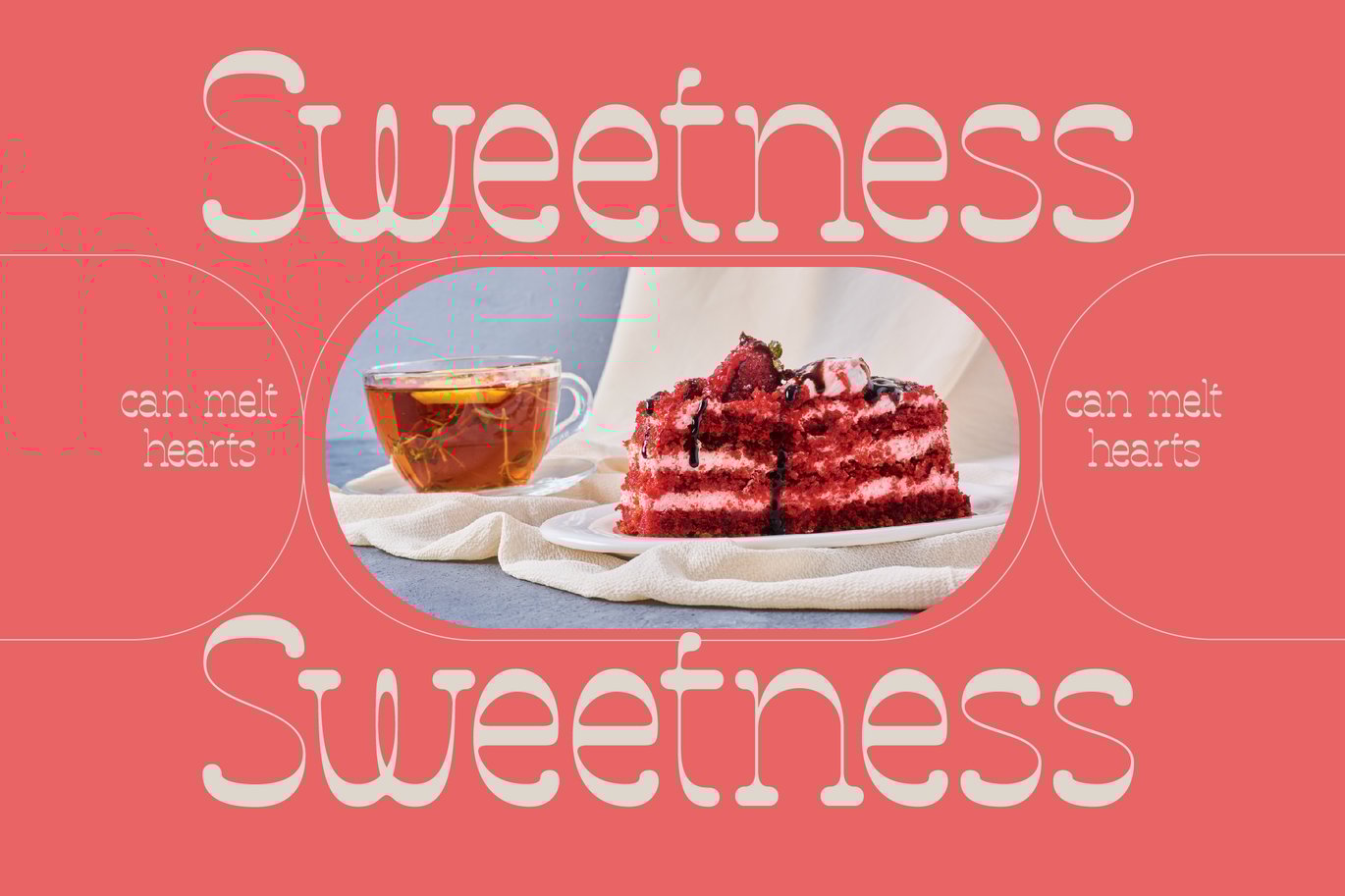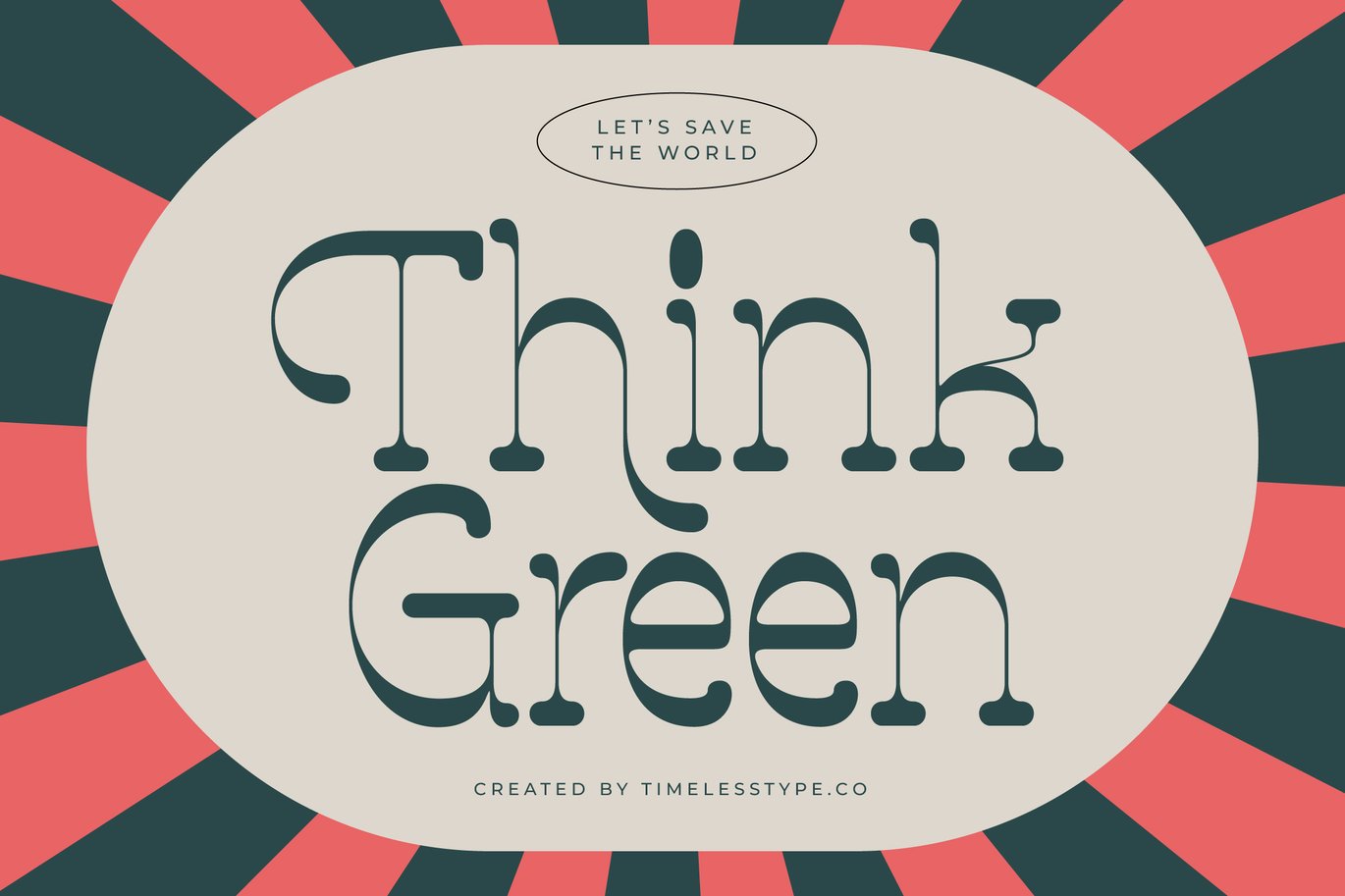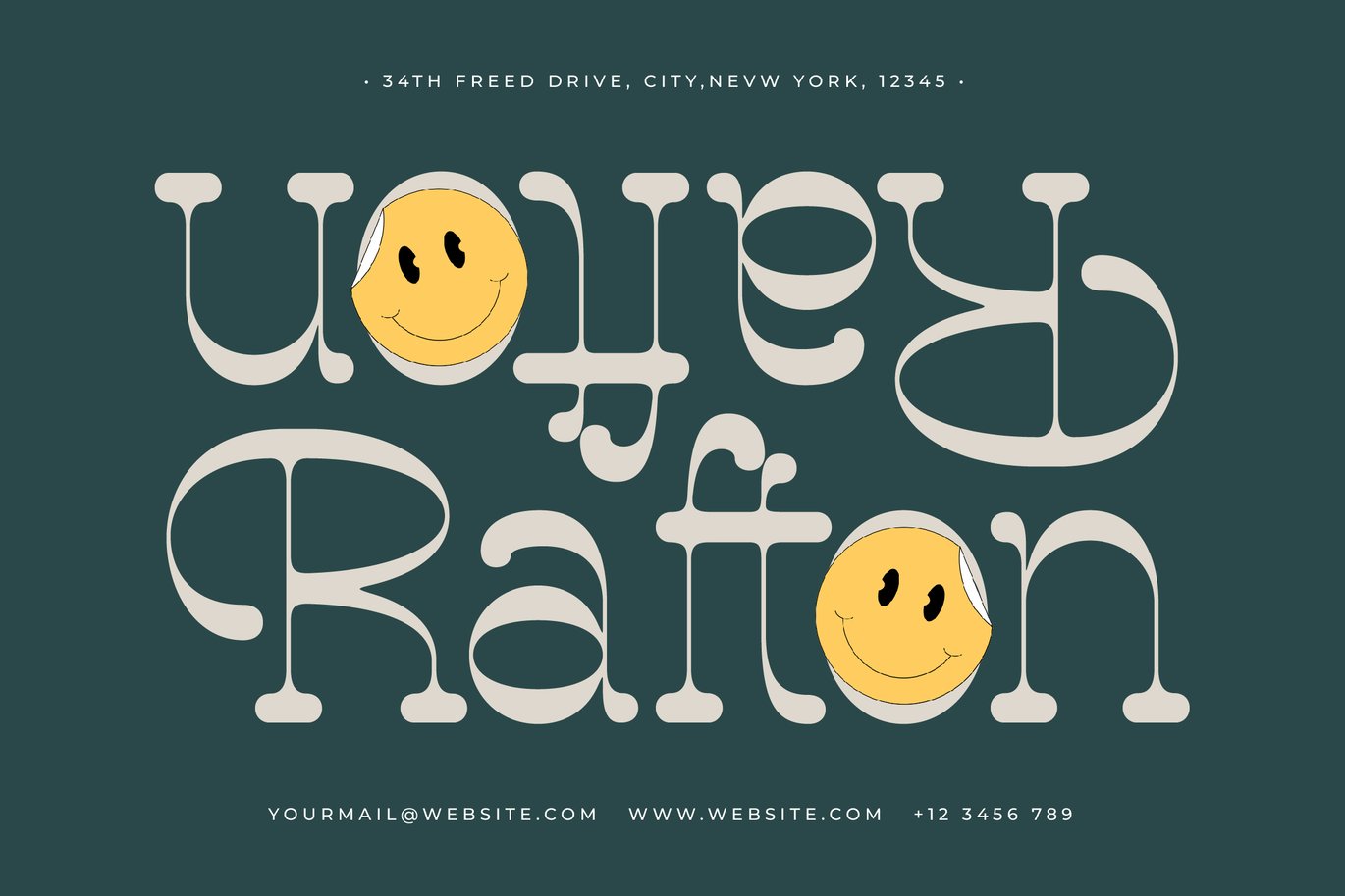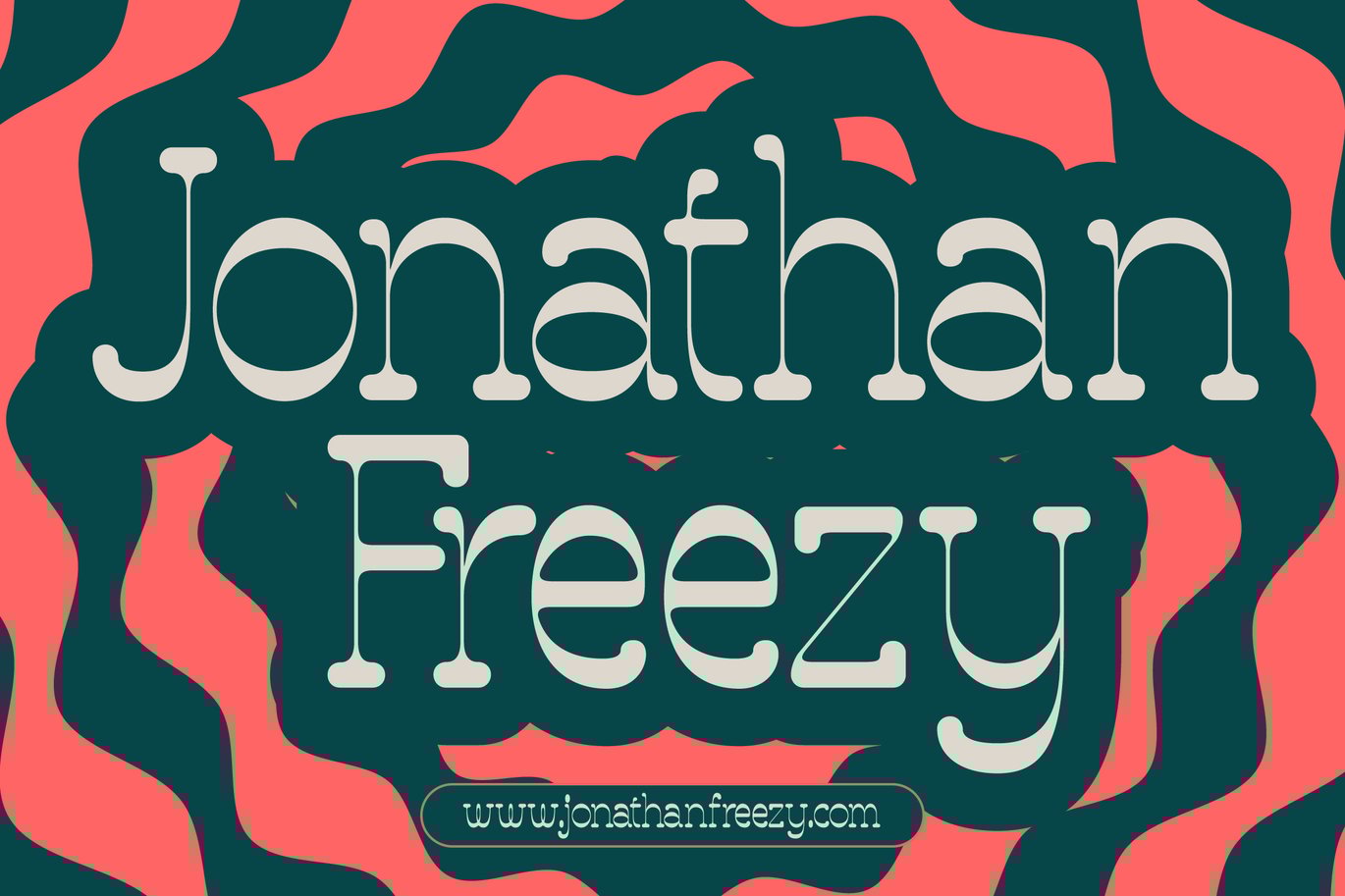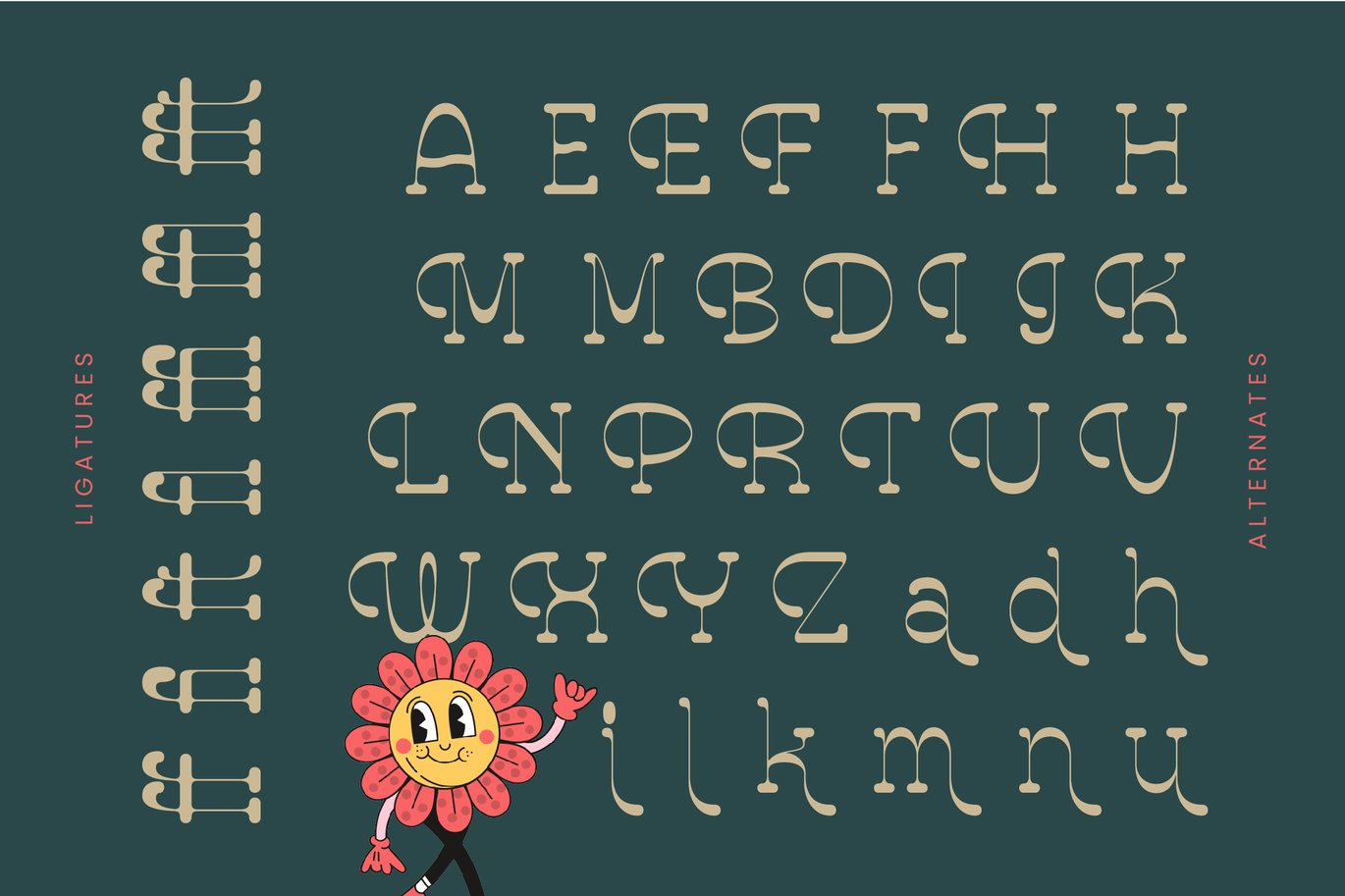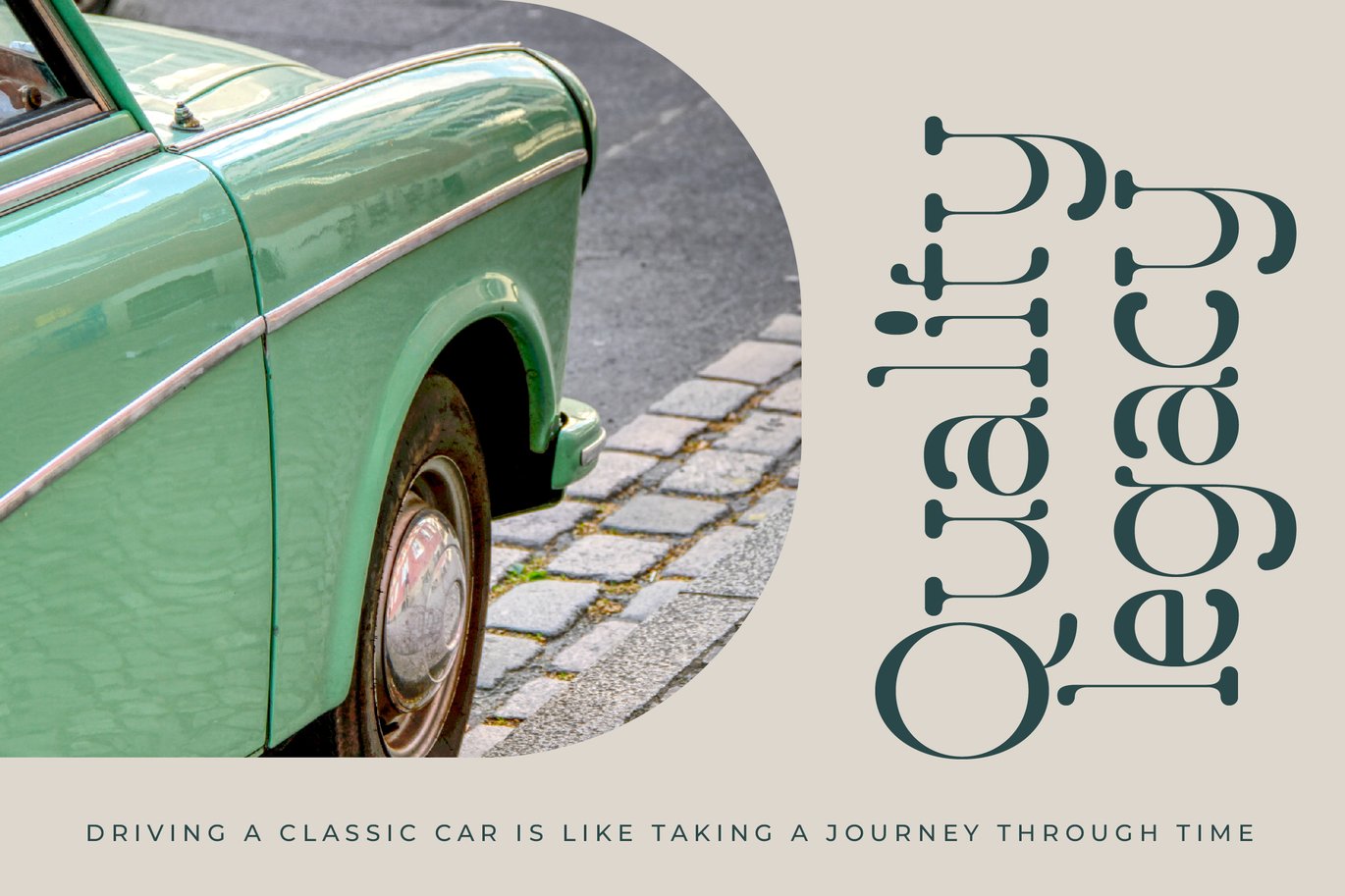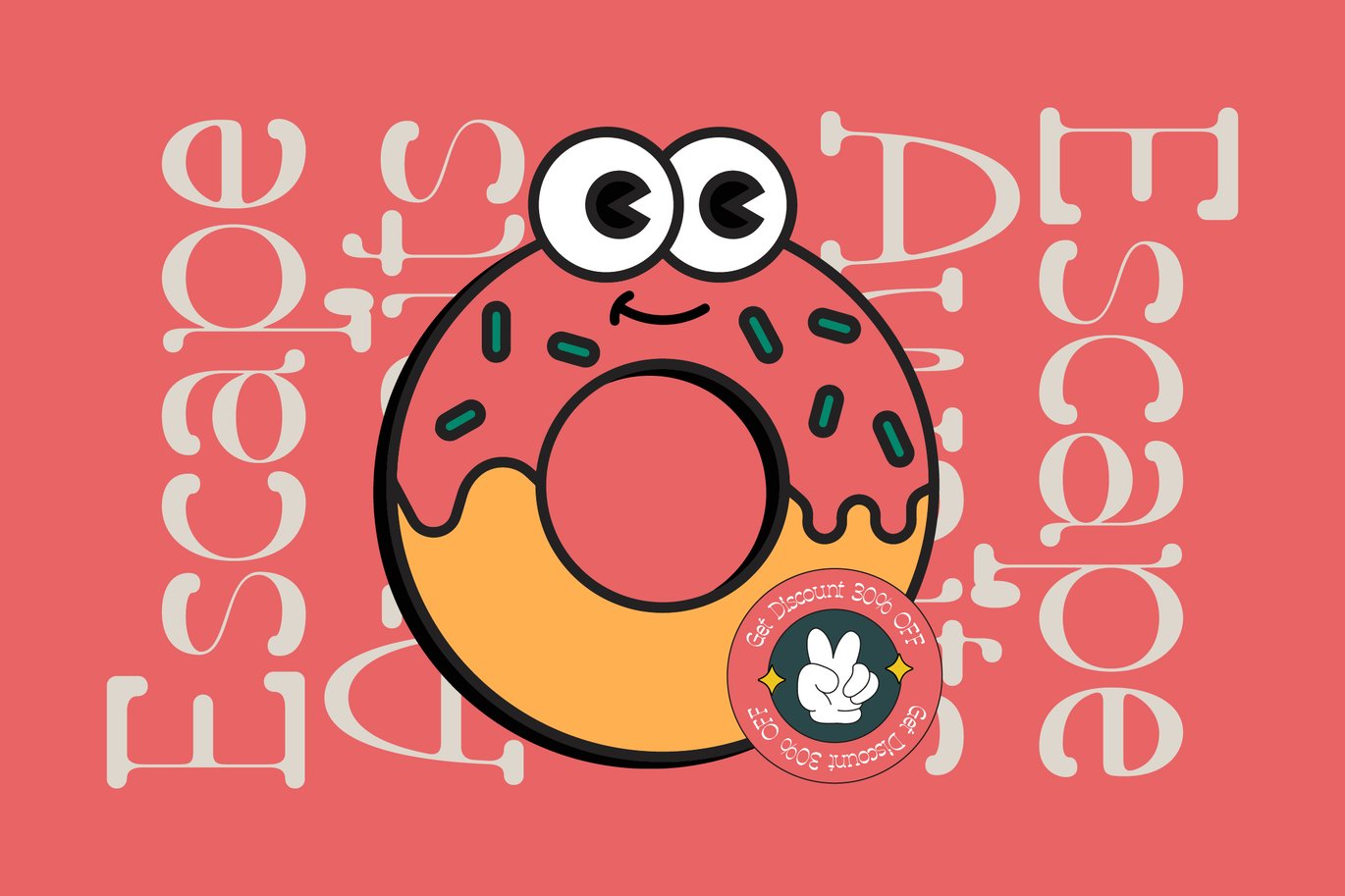
Thayla Mifikan - Retro Serif Display
Thayla Mifkan is a playful modern retro serif font with soft rounded terminals, whimsical curves, and a charming character reminiscent of vintage cartoons and mid-century typography.
Its friendly, bubbly structure makes it perfect for children’s branding, cute packaging, social media graphics, creative posters, stickers, and joyful display headlines. The font blends retro flair with contemporary smoothness, delivering a warm and approachable visual style.
Featuring 7 ligatures and 35 alternates, Thayla Mifkan gives designers a versatile toolkit for crafting expressive titles, unique logotypes, decorative lettering, and personality-driven layouts. Its curved stems, stylized serifs, and fun ornamental touches make it ideal for designers looking to add charm, sweetness, and retro character to their work.